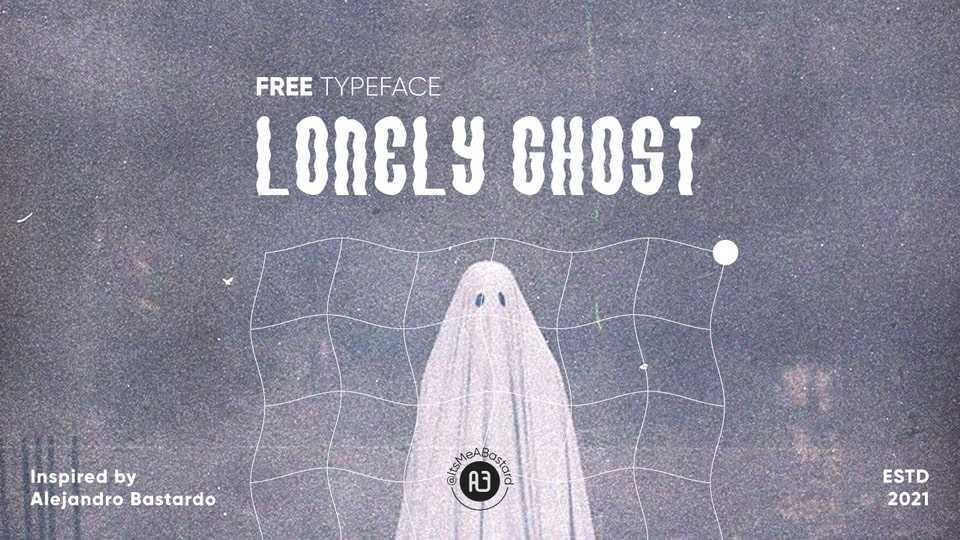
Download Lonely Ghost font, a typeface inspired by A Ghost Story film. Lonely Ghost font is ideal for any graphic material and perfect as for poster designs, printing on t-shirts, mug, stickers any other products, cover, book and magazine.
Designer: Alejandro Bastardo